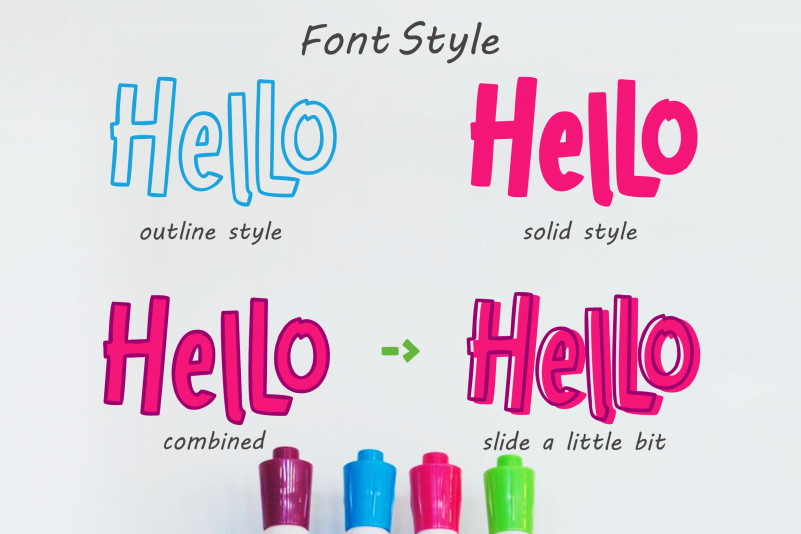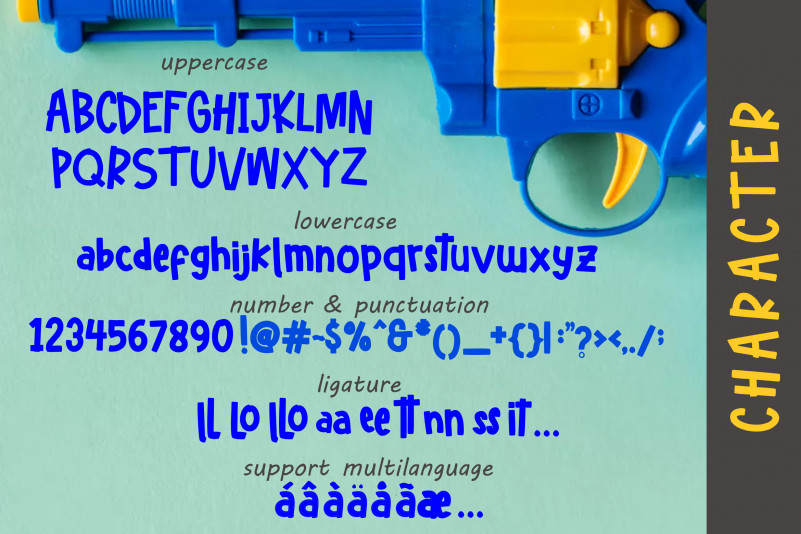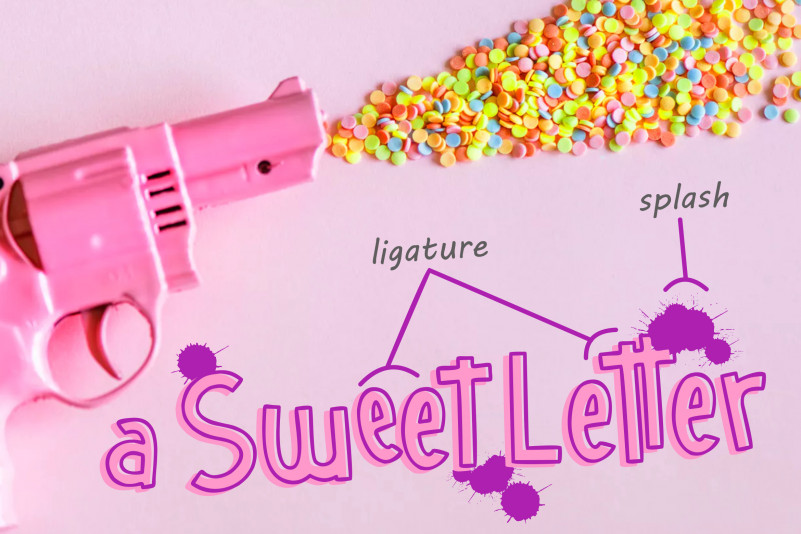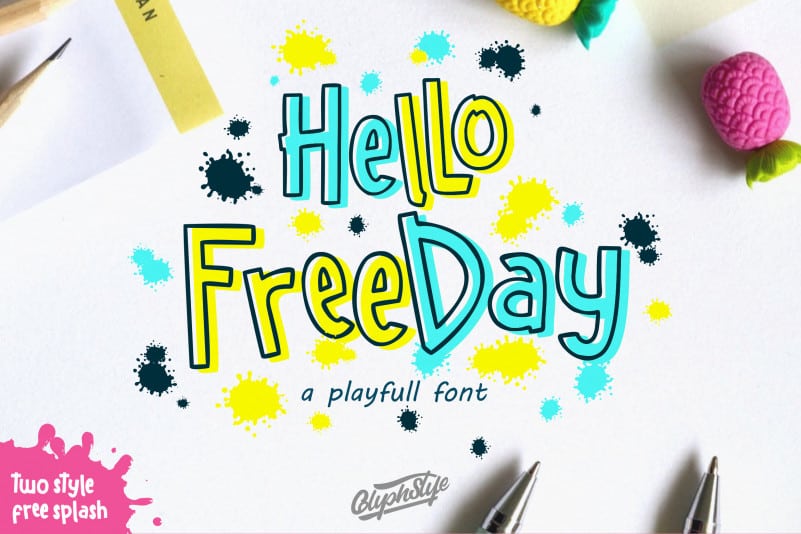
Hello freeday 2 Style font + free Splash
Hello Freeday is one font with two styles that is very cheerful and funny. consists of HelloFreeday outline and HelloFreeday (solid). This very funny font is perfect for funny or child-themed design projects. Hello Freeday Font is perfect for tshirt, logos, wedding designs, social media posts, advertisements, business cards, cover magazines, labels, photography, watermarks, invitations, stationery, and any projects that require cheerful writing tastes in two styles.
with this font you do not need to work twice to make an outline of letters, because this font provides 2 styles